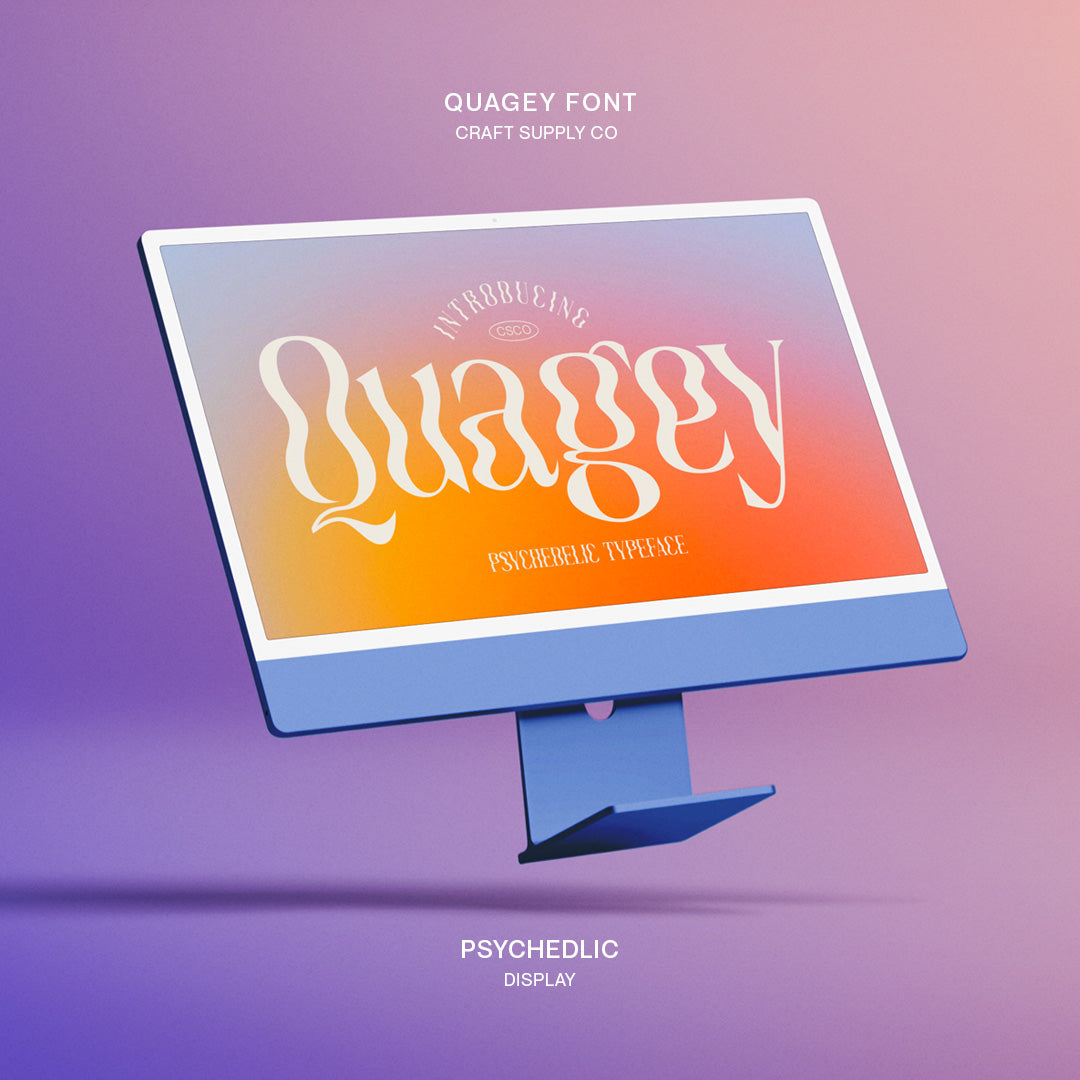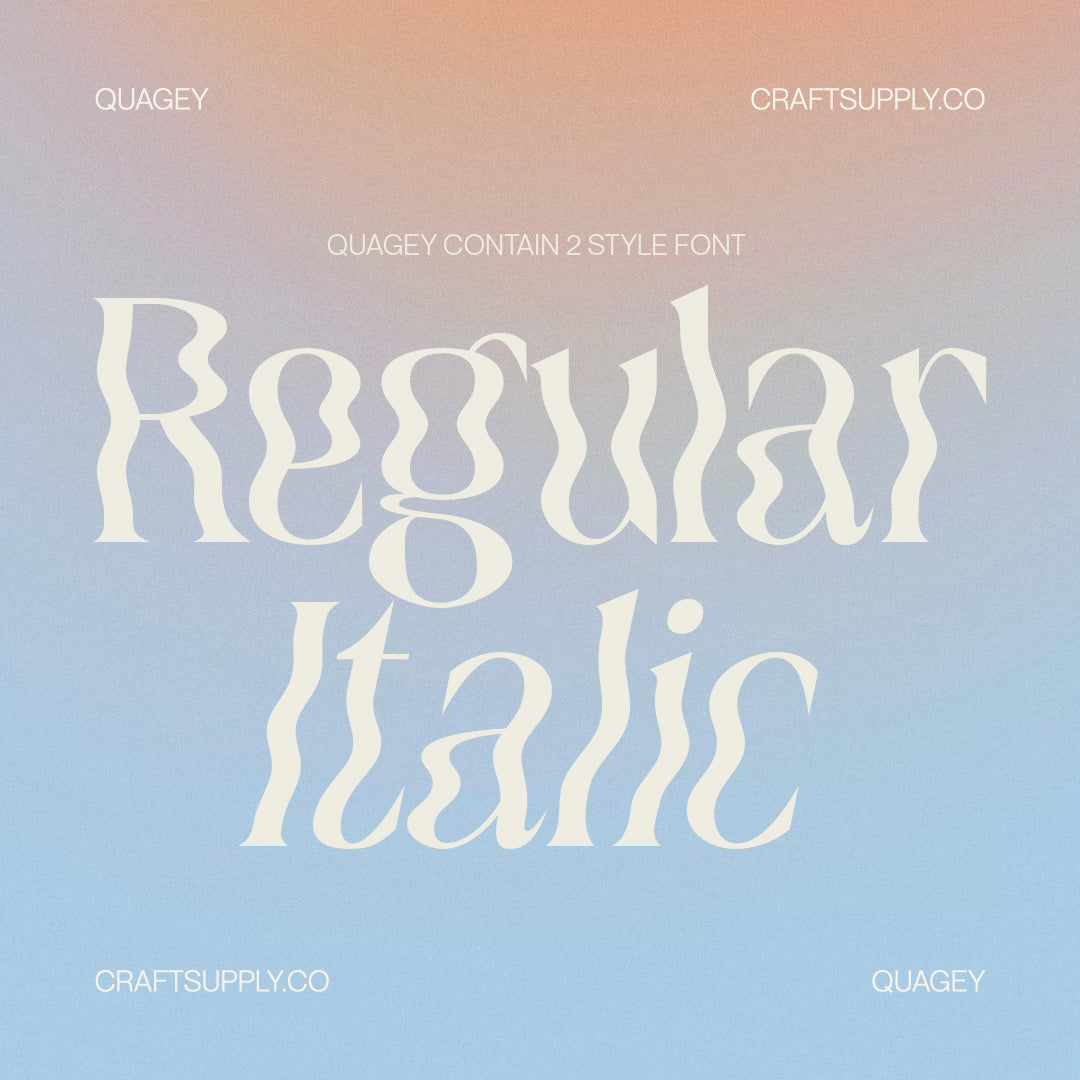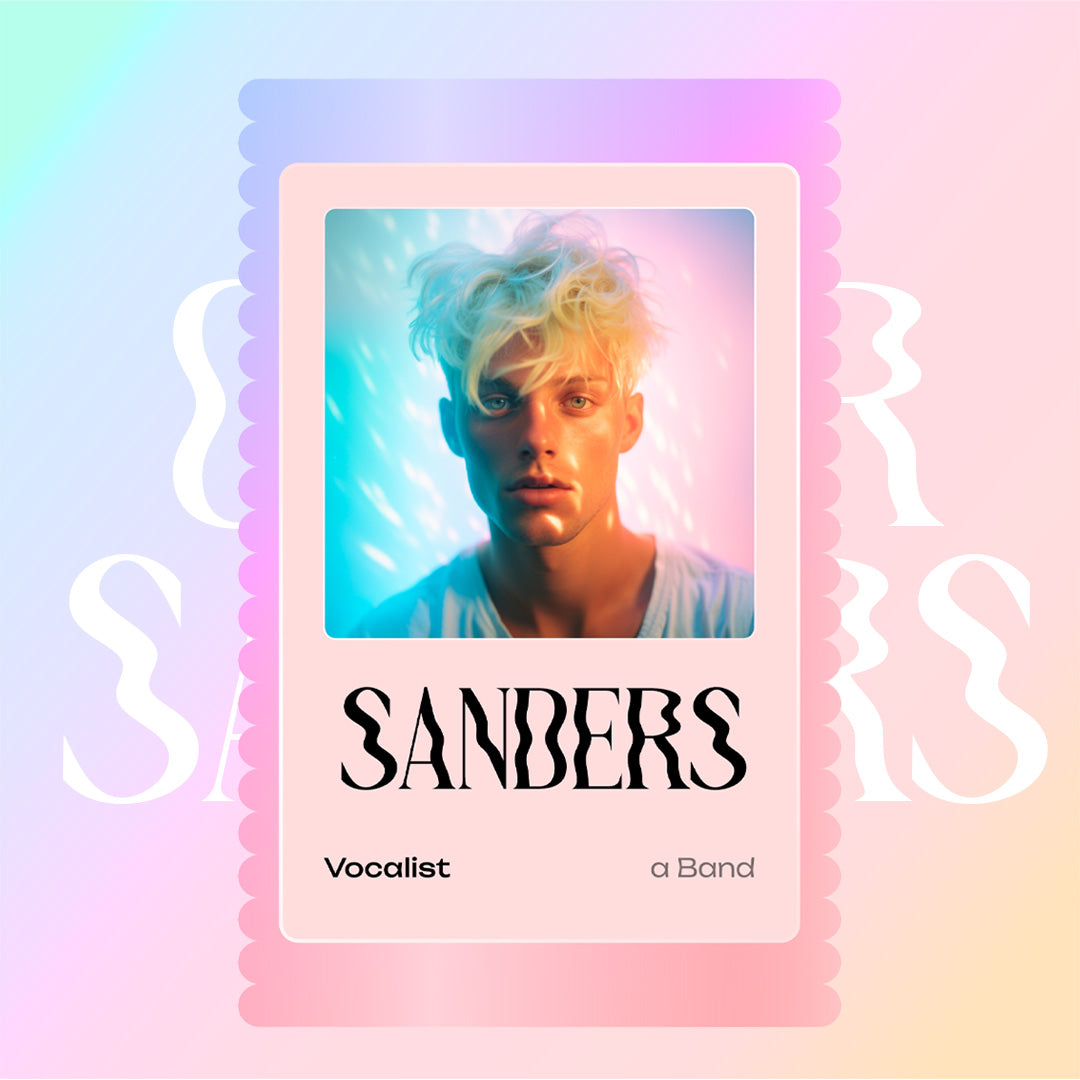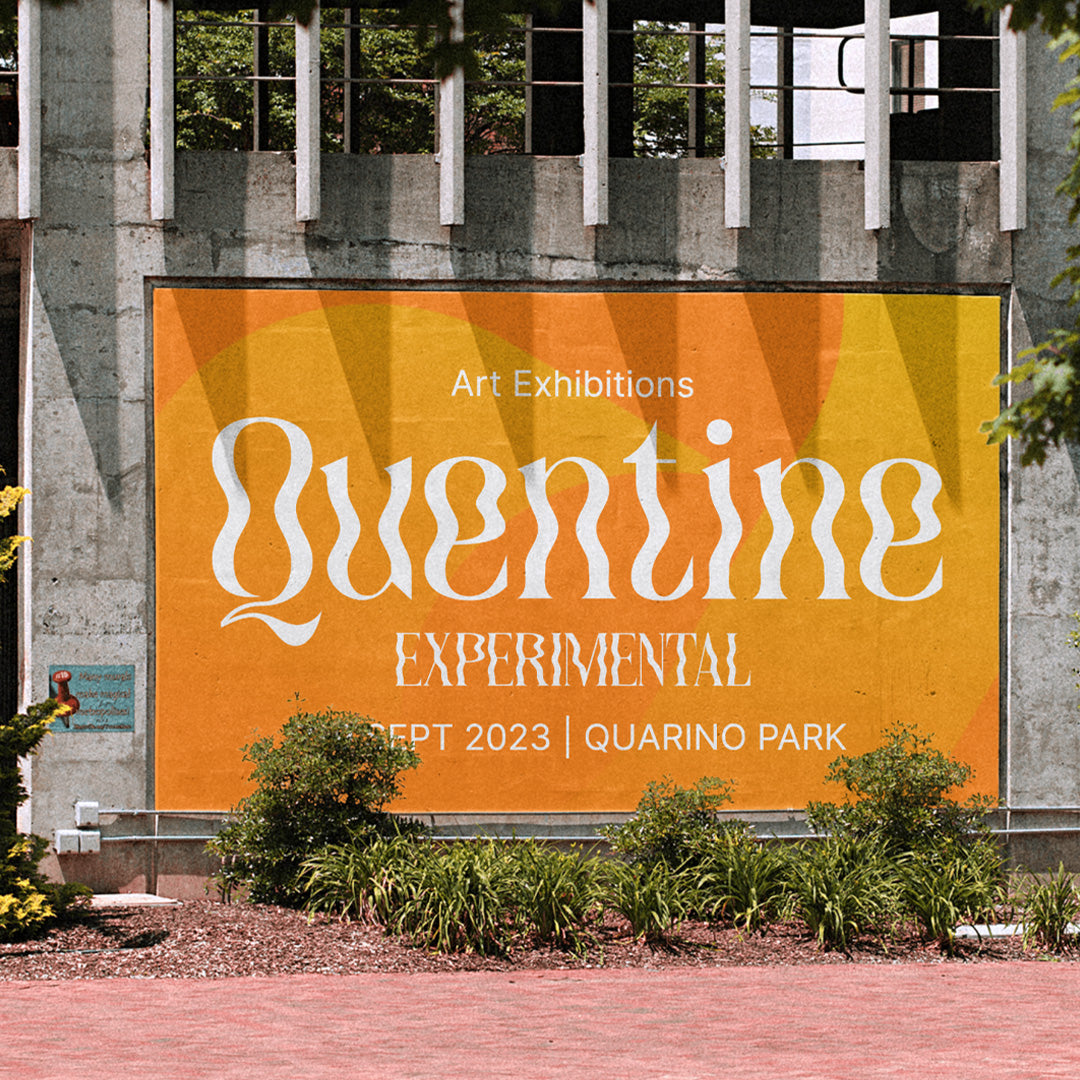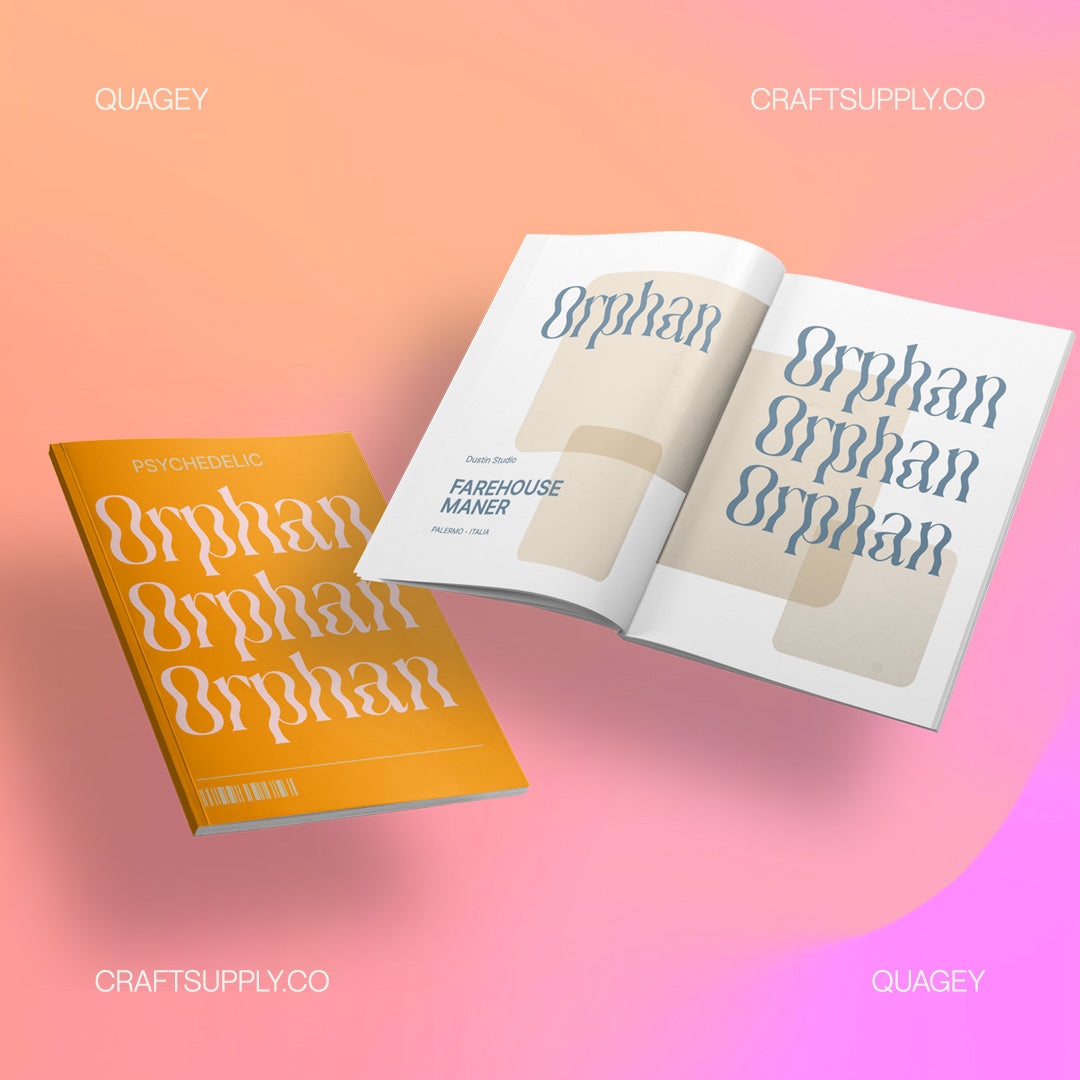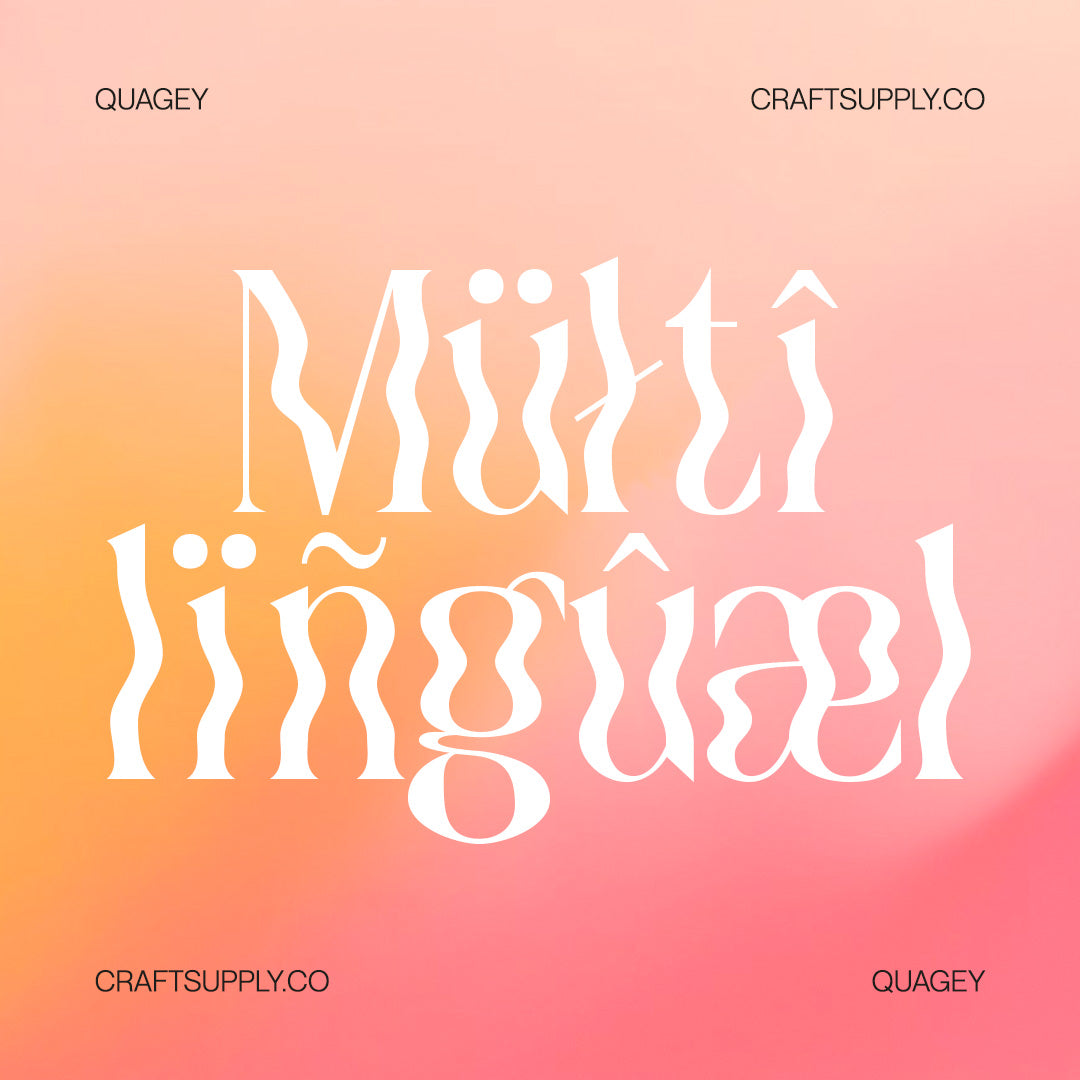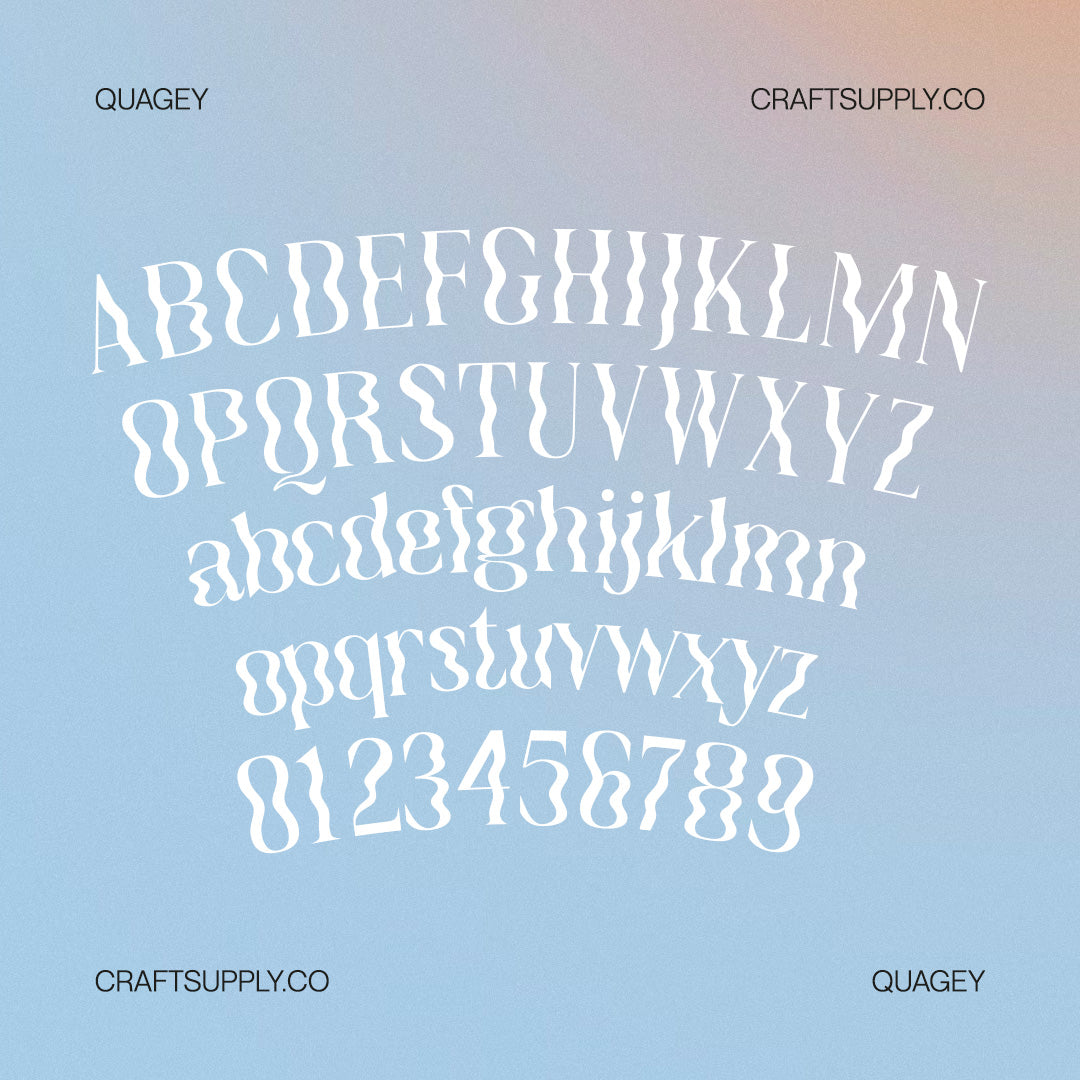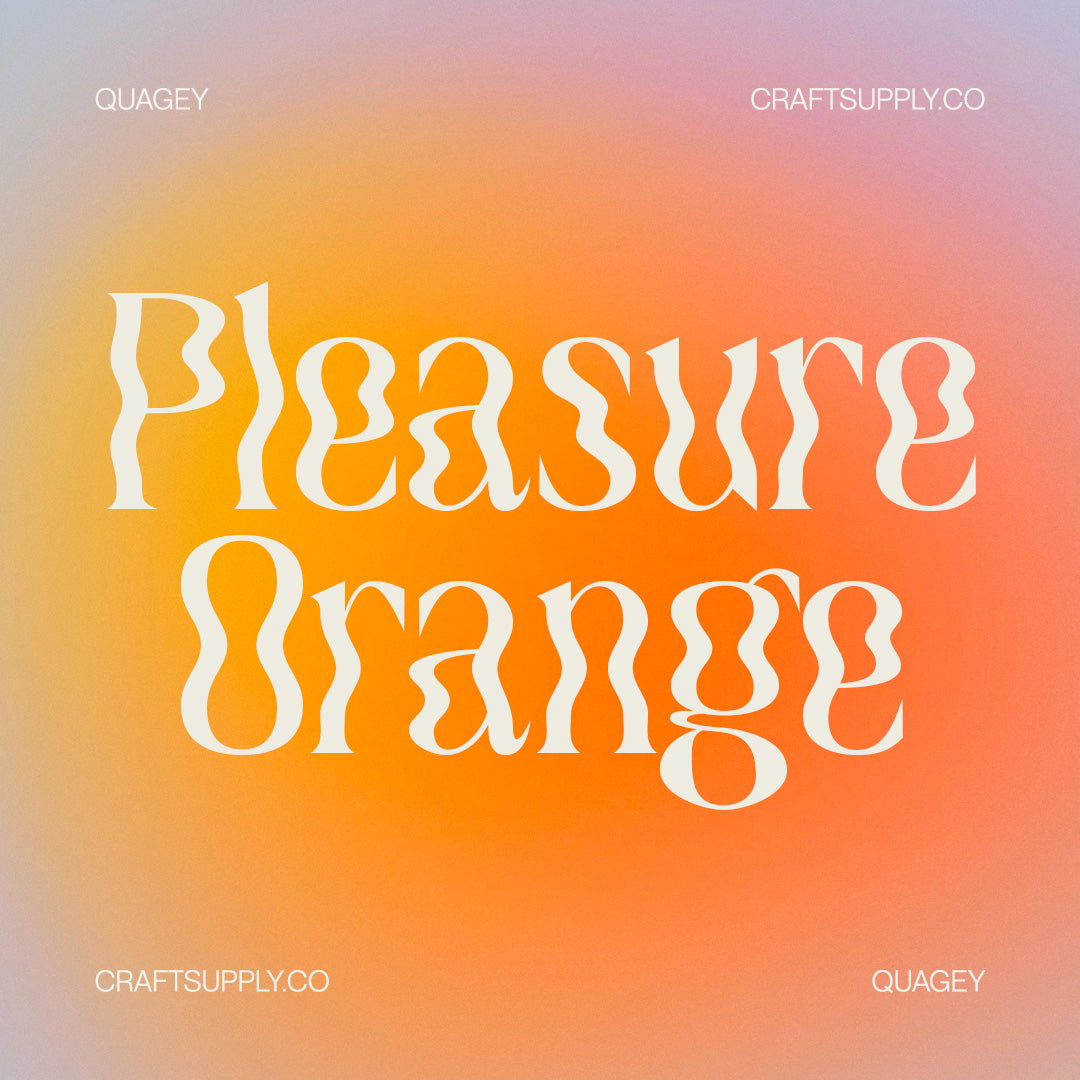
Quagey – Psychedelic Typeface
Quagey – Psychedelic Typeface: Where letters dance with vibrant, kaleidoscopic energy. It’s not just a font; it’s an electrifying visual experience, making your message unmissable, like a psychedelic journey.
This typeface is ideal for greeting card, packaging, brand identity, poster, or any purpose to make your design project look eye catching and trendy. Feel free to play with this typeface!
Quagey – Psychedelic Typeface is a vibrant font that includes both Regular and Italic styles, featuring uppercase and lowercase letters, numerals, punctuation, and multilingual accents. This typeface is PUA encoded for easy access to its unique characters.